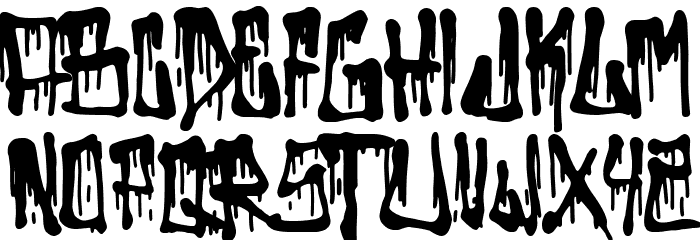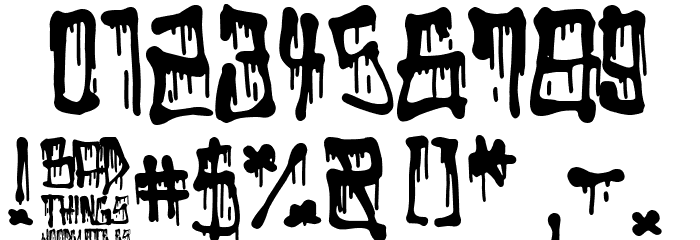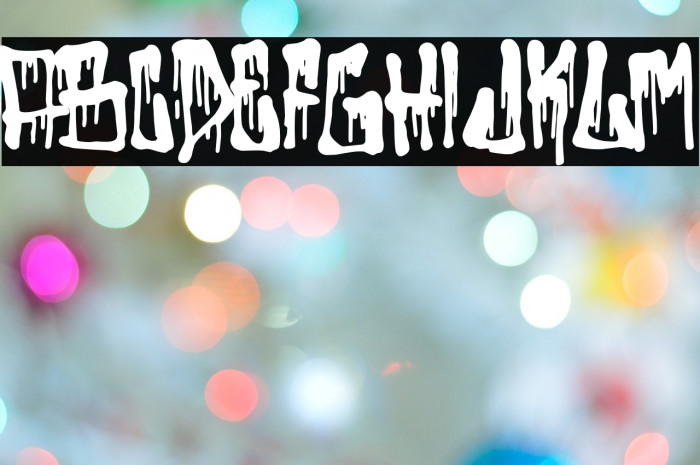
Bad Things Font
This font exudes a bold and edgy aesthetic, characterized by its dripping, graffiti-like appearance. The letters appear as if they are melting or bleeding, creating a sense of movement and chaos. The uppercase and lowercase letters maintain a consistent style, with exaggerated curves and sharp edges that enhance the dramatic effect. Numbers and special characters follow the same design, ensuring a cohesive look throughout. The font's unique style makes it ideal for projects that require a rebellious or horror-themed vibe, such as posters, album covers, or Halloween decorations.
A bold, dripping graffiti-style font with a rebellious edge.
- Proposed Projects: Ideal for horror-themed posters, edgy album covers, Halloween decorations, or street art-inspired designs.